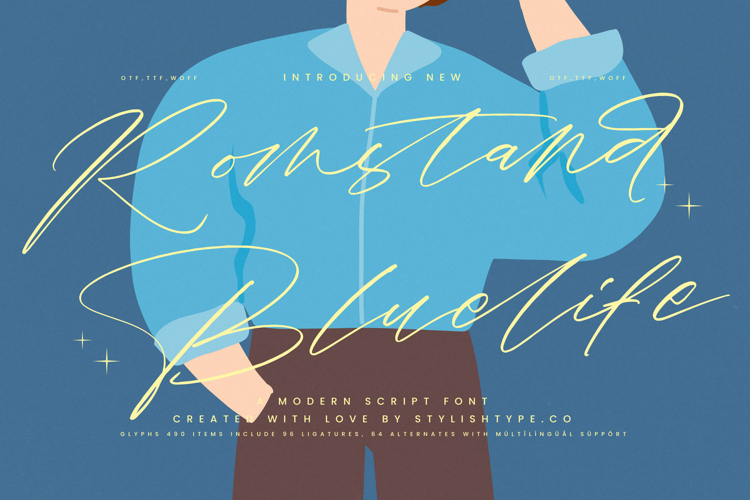
Romstand Bluelife - Modern Script Font
Romstand Bluelife is a modern script font that blends handwritten elegance with a clean contemporary touch. Designed with smooth strokes, refined ligatures, and graceful alternates, it offers a stylish handwritten look that works beautifully across professional and creative projects. With 490 glyphs, 96 ligatures, and 64 alternates, this typeface provides endless opportunities to craft unique, custom lettering.
The font excels in branding. Whether applied to logos, boutique shops, fashion labels, or luxury packaging, Romstand Bluelife communicates sophistication and originality. Its handwritten charm ensures that branding projects feel authentic, stylish, and memorable, making it ideal for businesses aiming to stand apart.
In editorial and publishing, Romstand Bluelife adds refinement and personality. Magazines, book covers, lifestyle features, and invitations benefit from its expressive flow and legibility. It creates editorial layouts that combine elegance with readability, turning text into a visual highlight.
For web typography, this script adapts seamlessly across blogs, websites, portfolios, and social media content. Its smooth, stylish strokes enhance digital media projects that require a modern handwritten feel, making it a perfect fit for influencers, creatives, and online brands.
The typeface is also powerful in advertising and marketing. From posters and promotional campaigns to product launches and business cards, Romstand Bluelife delivers visual impact while maintaining refinement. It ensures advertising communicates both creativity and professionalism, appealing to audiences who value originality.
Romstand Bluelife is particularly effective for wedding and event design. With its graceful alternates and swashes, it elevates invitations, greeting cards, signage, and stationery into romantic and timeless keepsakes. This makes it a perfect choice for wedding branding and elegant celebrations.
In packaging design, the font adds exclusivity and warmth. From cosmetics and jewelry to artisanal goods and gourmet products, it enhances packaging with a handcrafted aesthetic. It ensures products communicate both luxury and authenticity, making them stand out on the shelf.
More than just a script font, Romstand Bluelife is a creative companion. With its modern handwritten style, artistic flexibility, and refined elegance, it empowers designers to produce projects that embody timeless sophistication and originality.